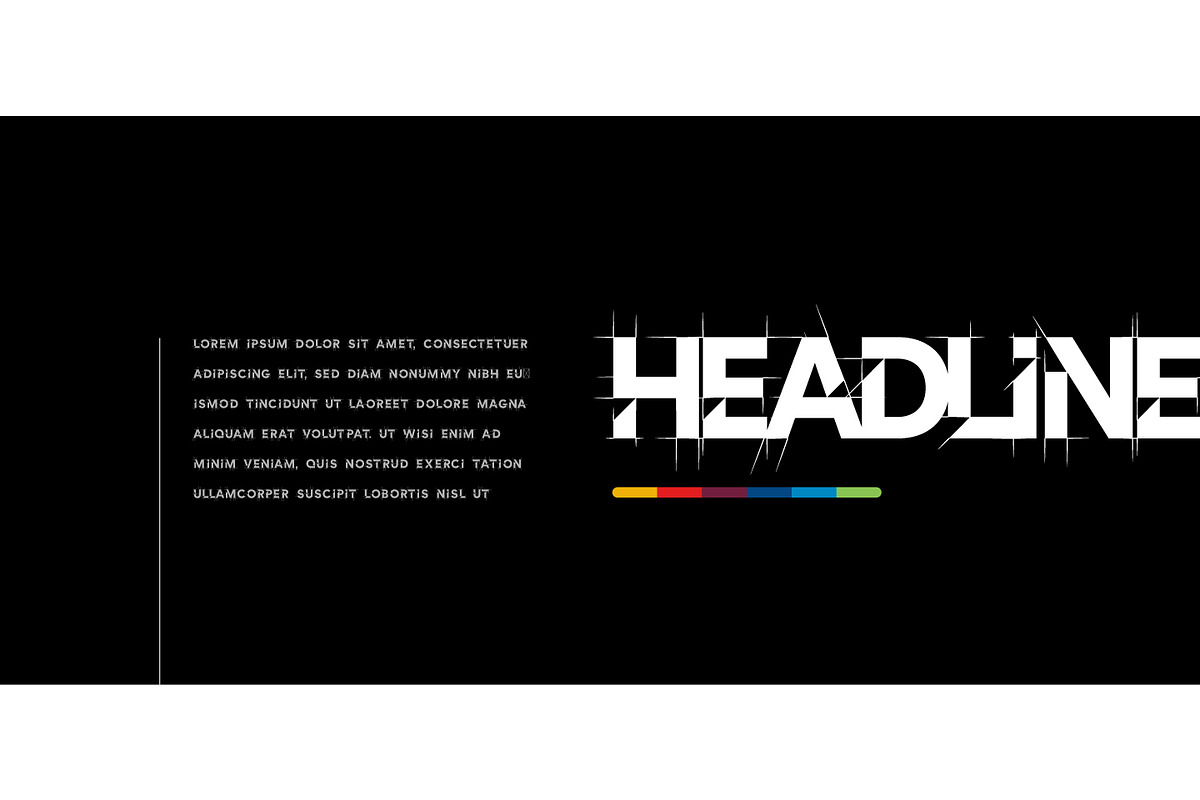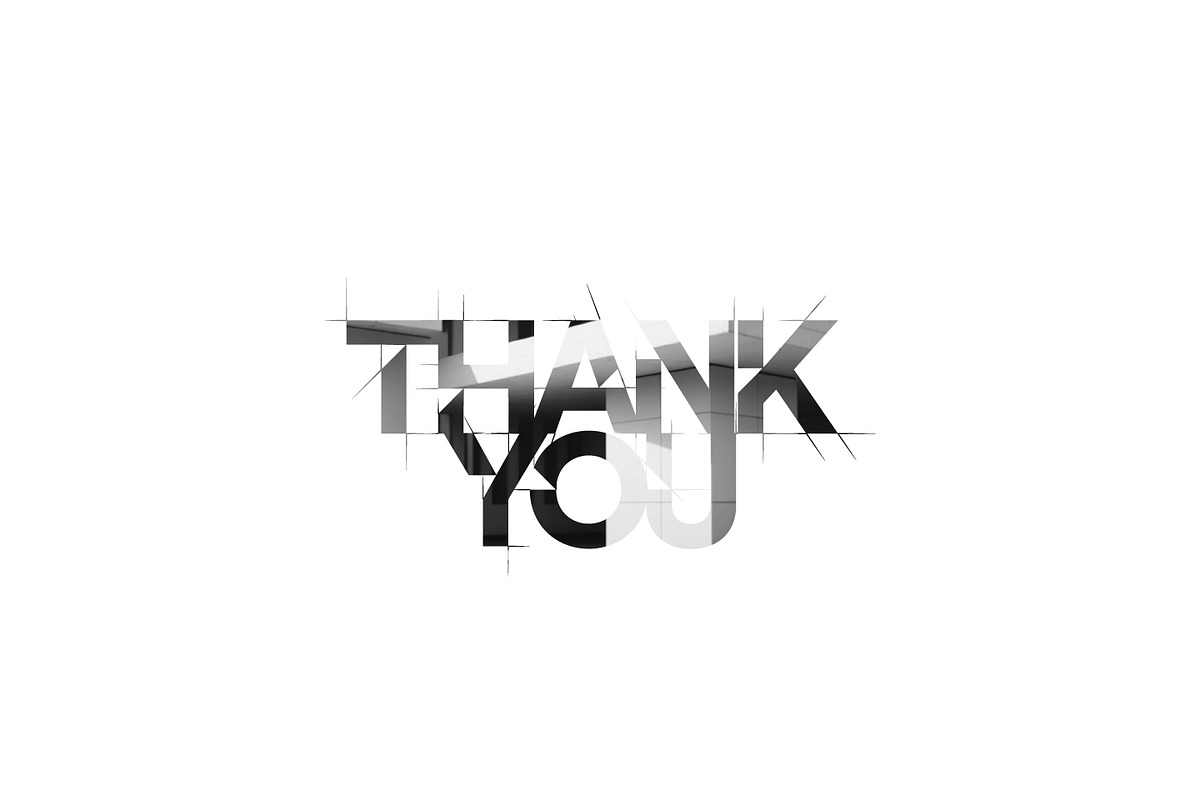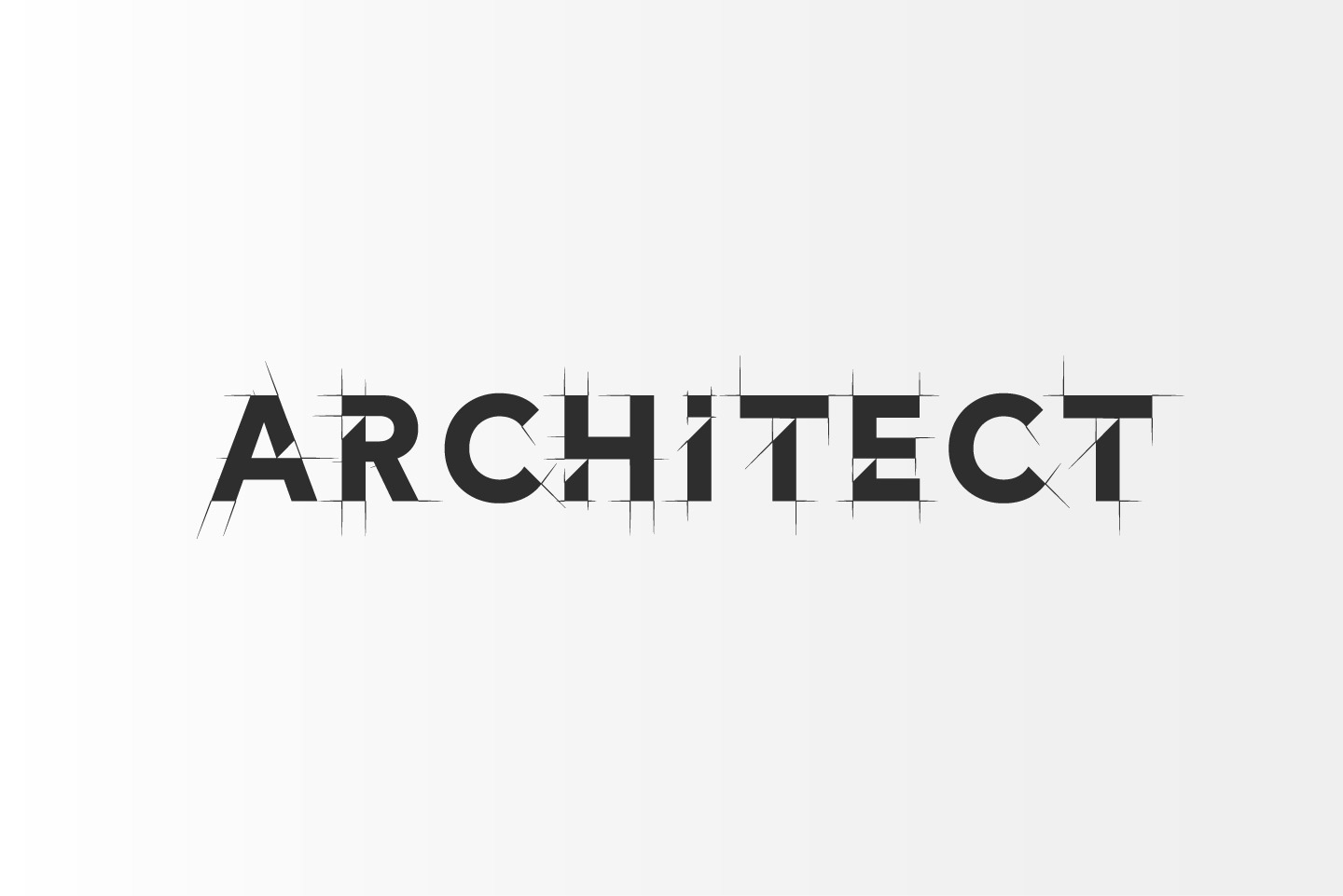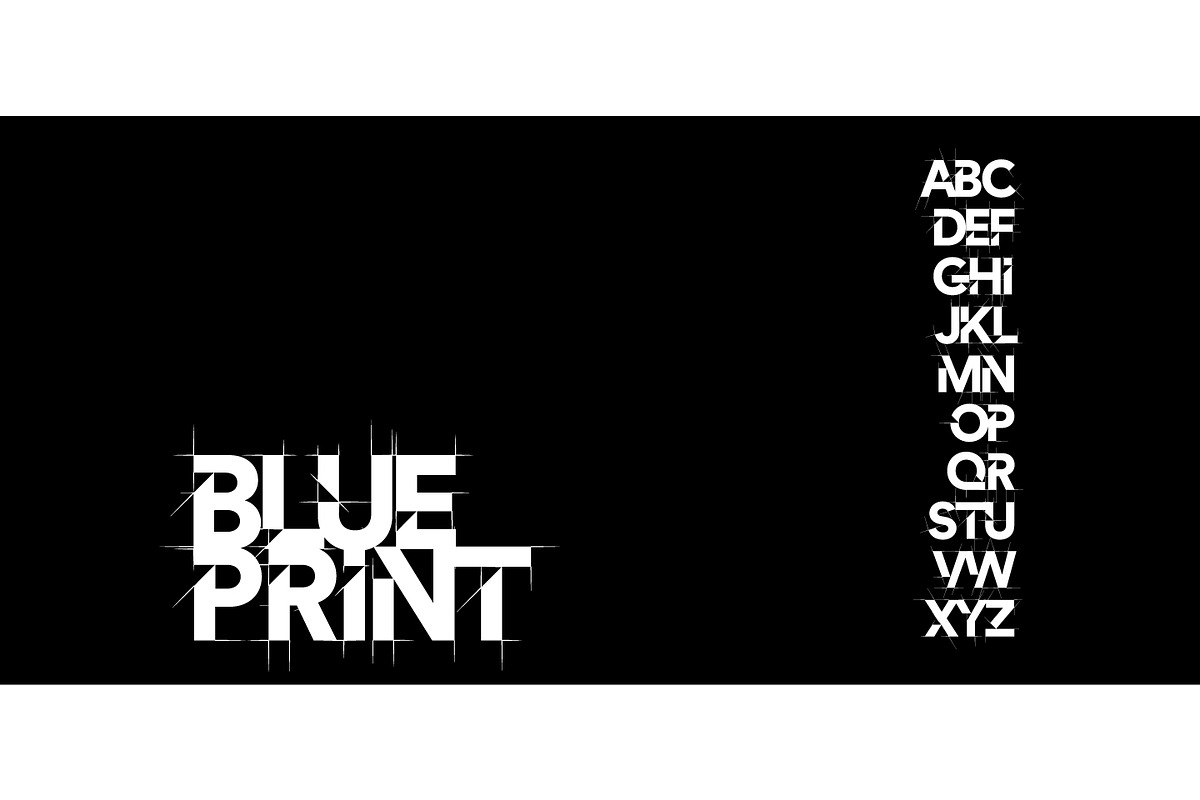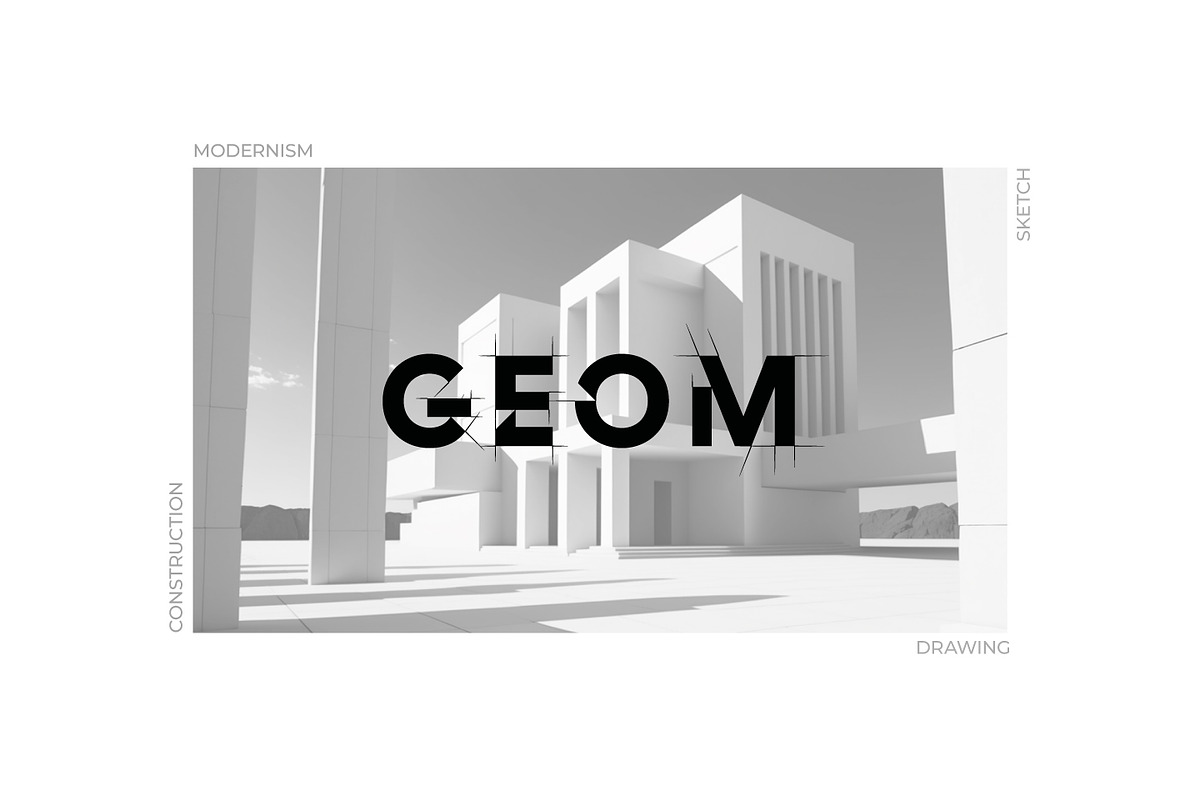
Architect Headline Font
Introducing our architectural blueprint style font, the perfect combination of precision and elegance.
With clean lines and sharp angles, this font captures the essence of architectural design, making it an ideal choice for logos, brochures, websites, and more. Its timeless style and contemporary appeal make it a versatile and essential addition to any designer's toolkit. Download now and elevate your designs to new heights.